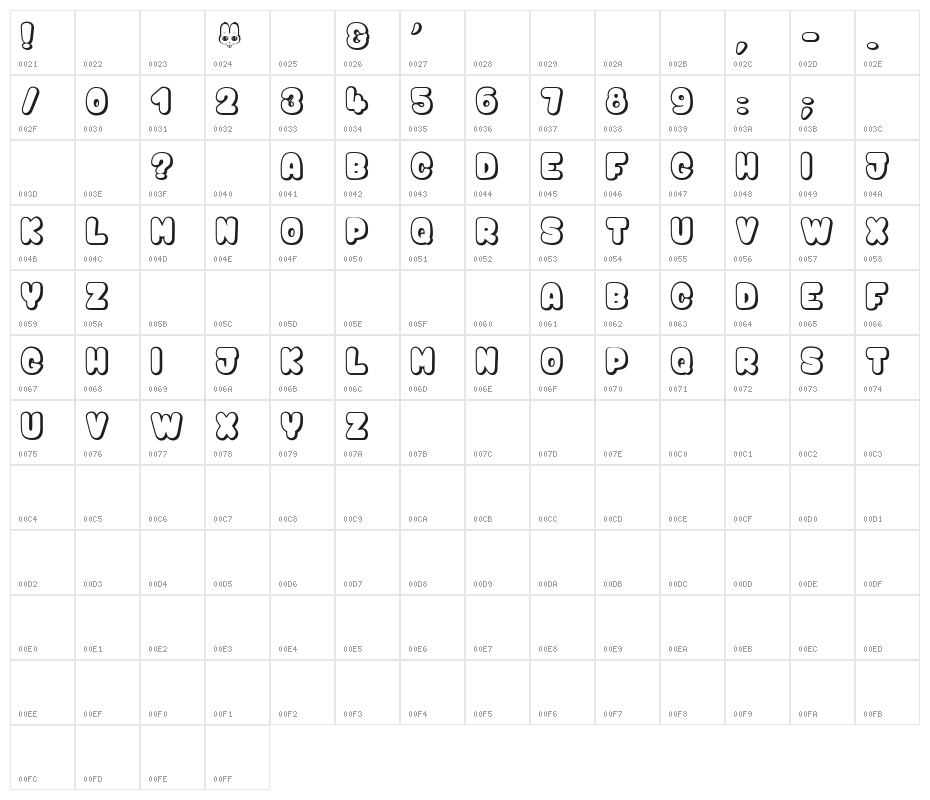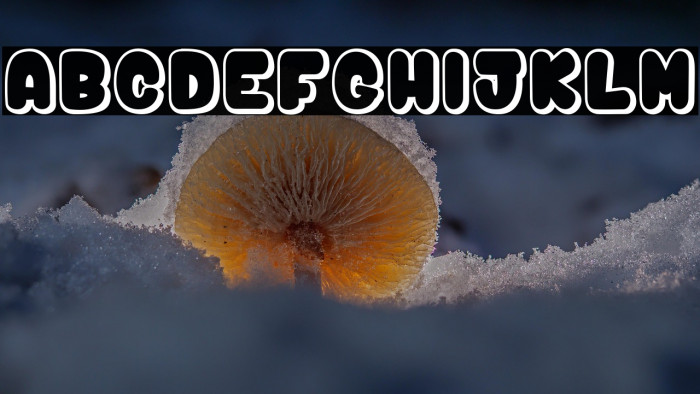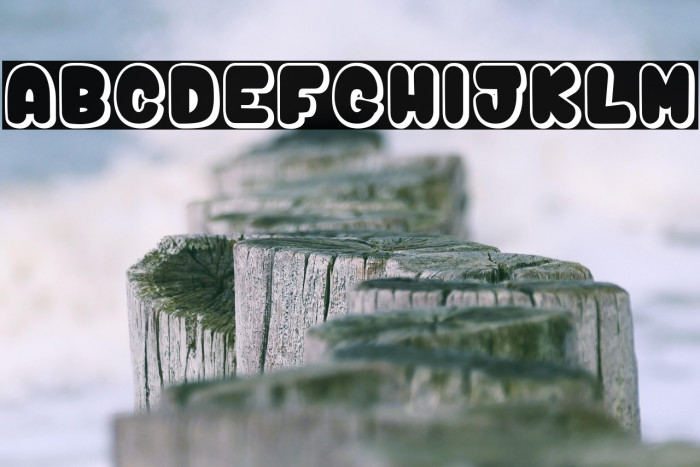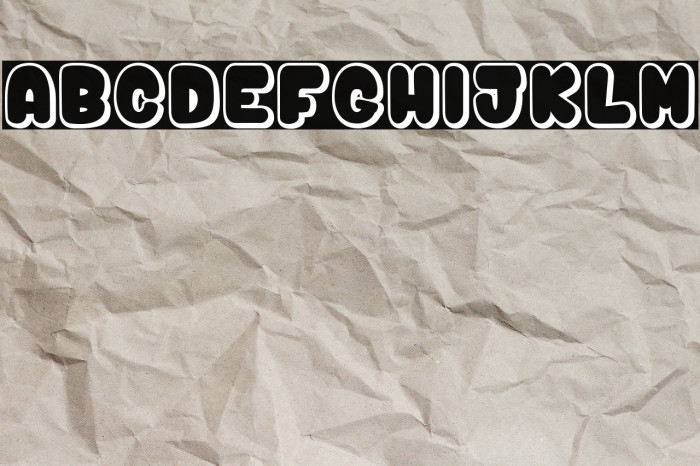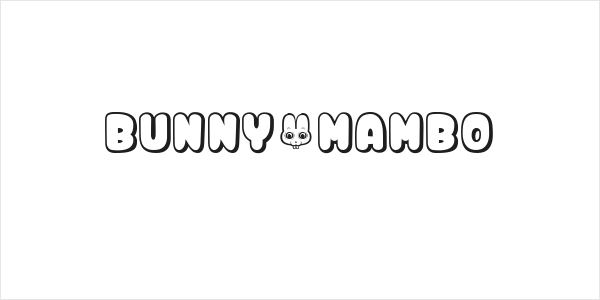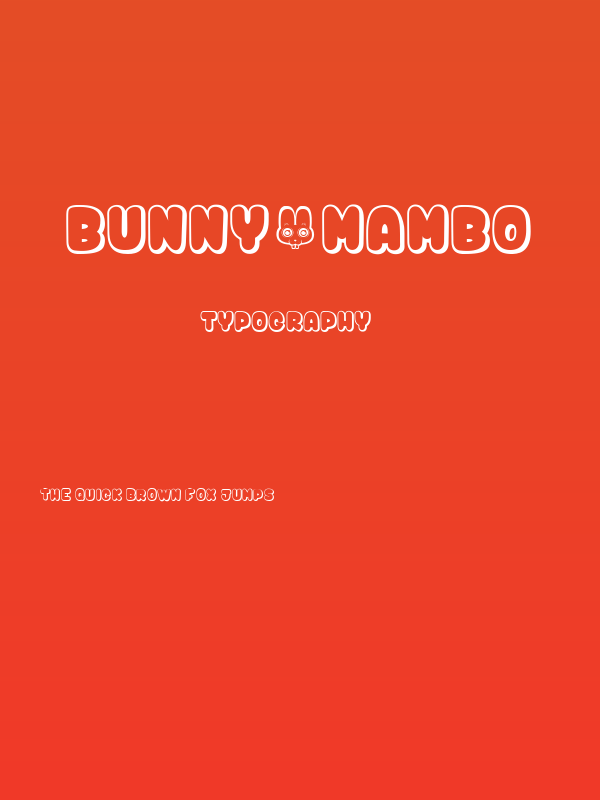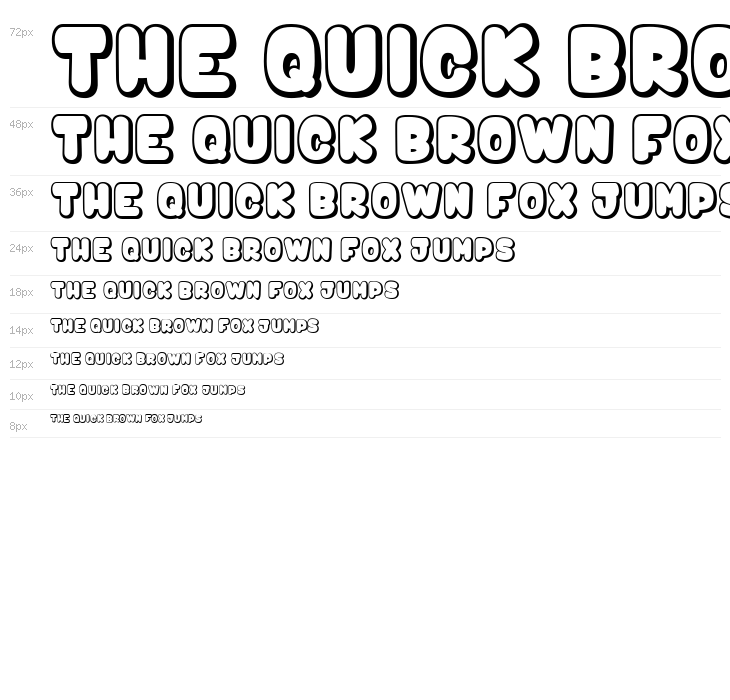
bunny$mambo Font
| Stile generale | Playful, Cartoonish |
| Progetti proposti | Ideal for children's books, playful branding, party invitations, and comic-style graphics. |